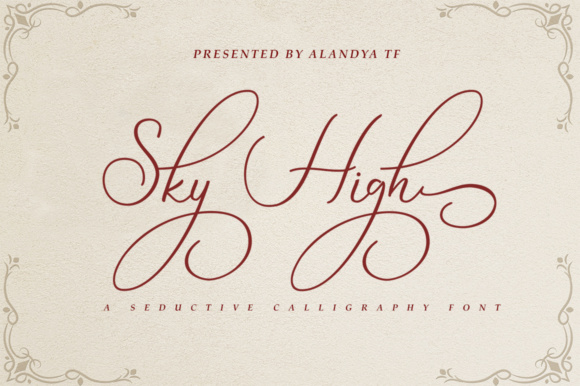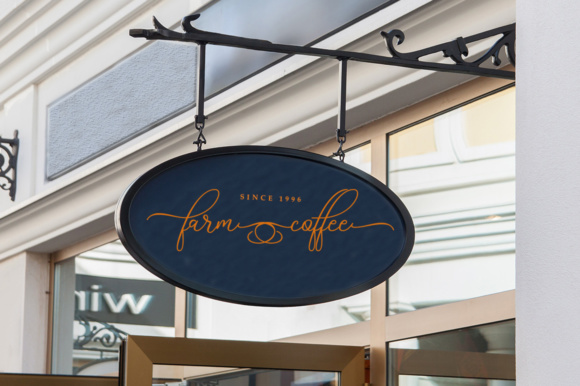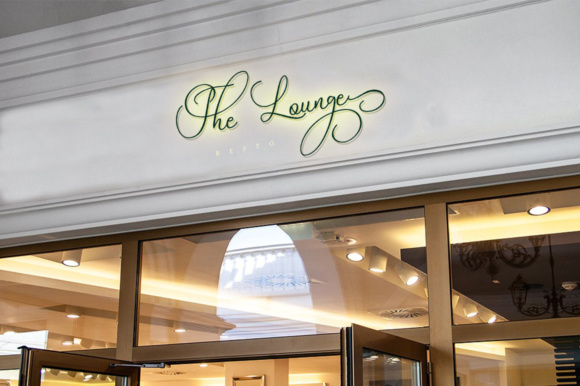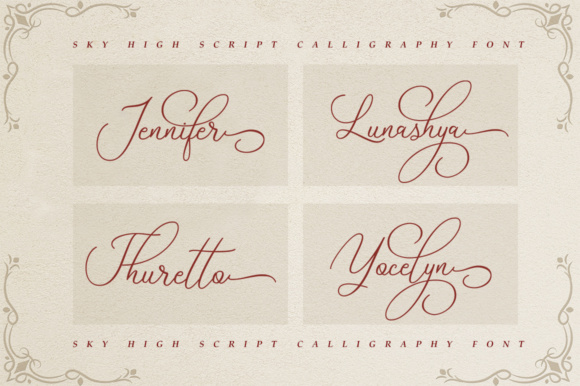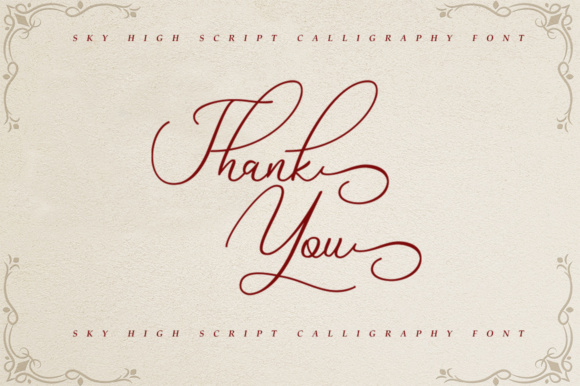
Sky High Script Font
About Sky High Script Font
The Sky High script is a beautiful, classic calligraphic font which will add a sweet, elegant, and perfect feel to your design. It’s perfect for logo projects, wedding invitation cards, branding, home designs, product packaging, and every other design that needs an elegant typeface.